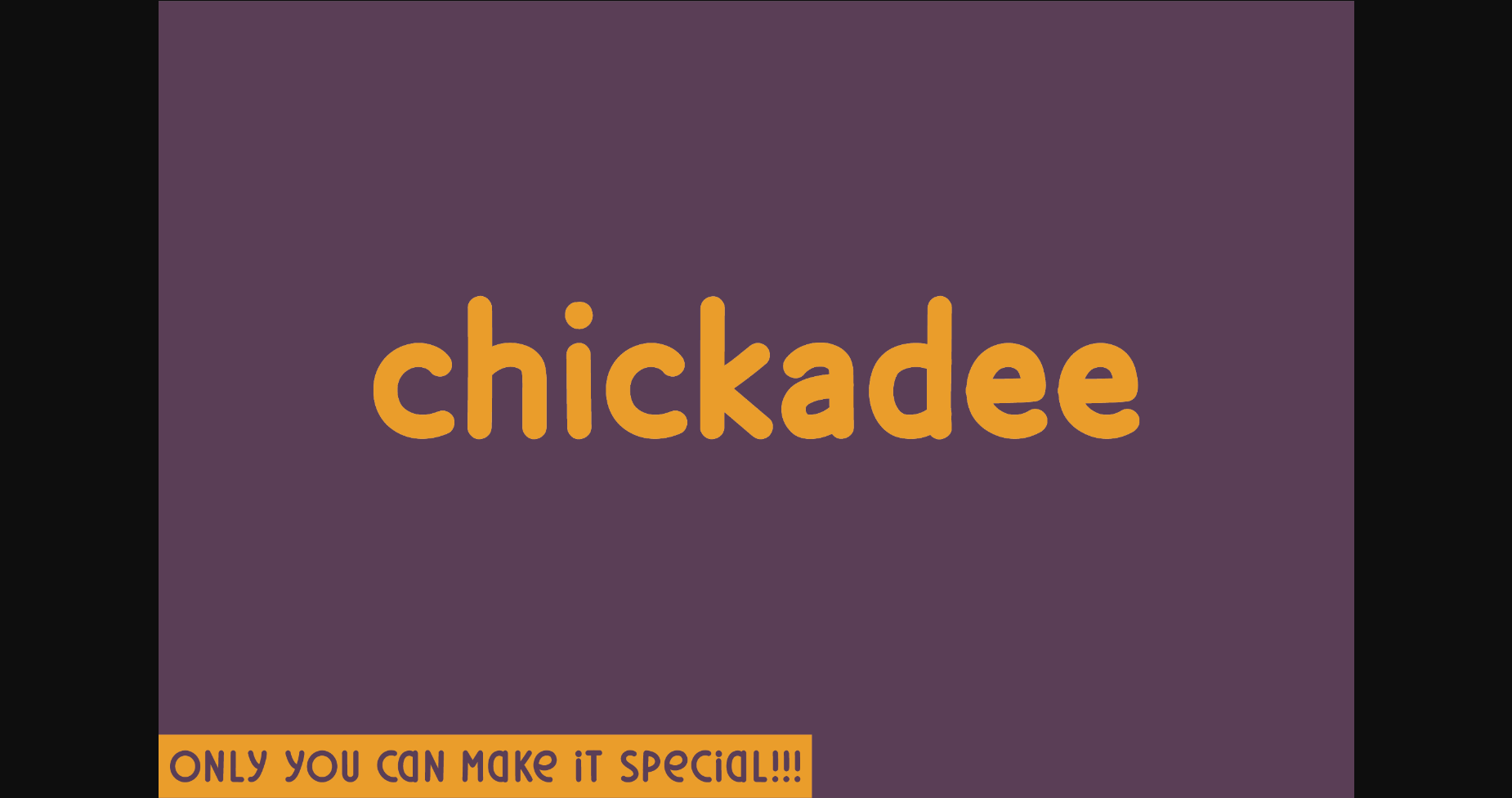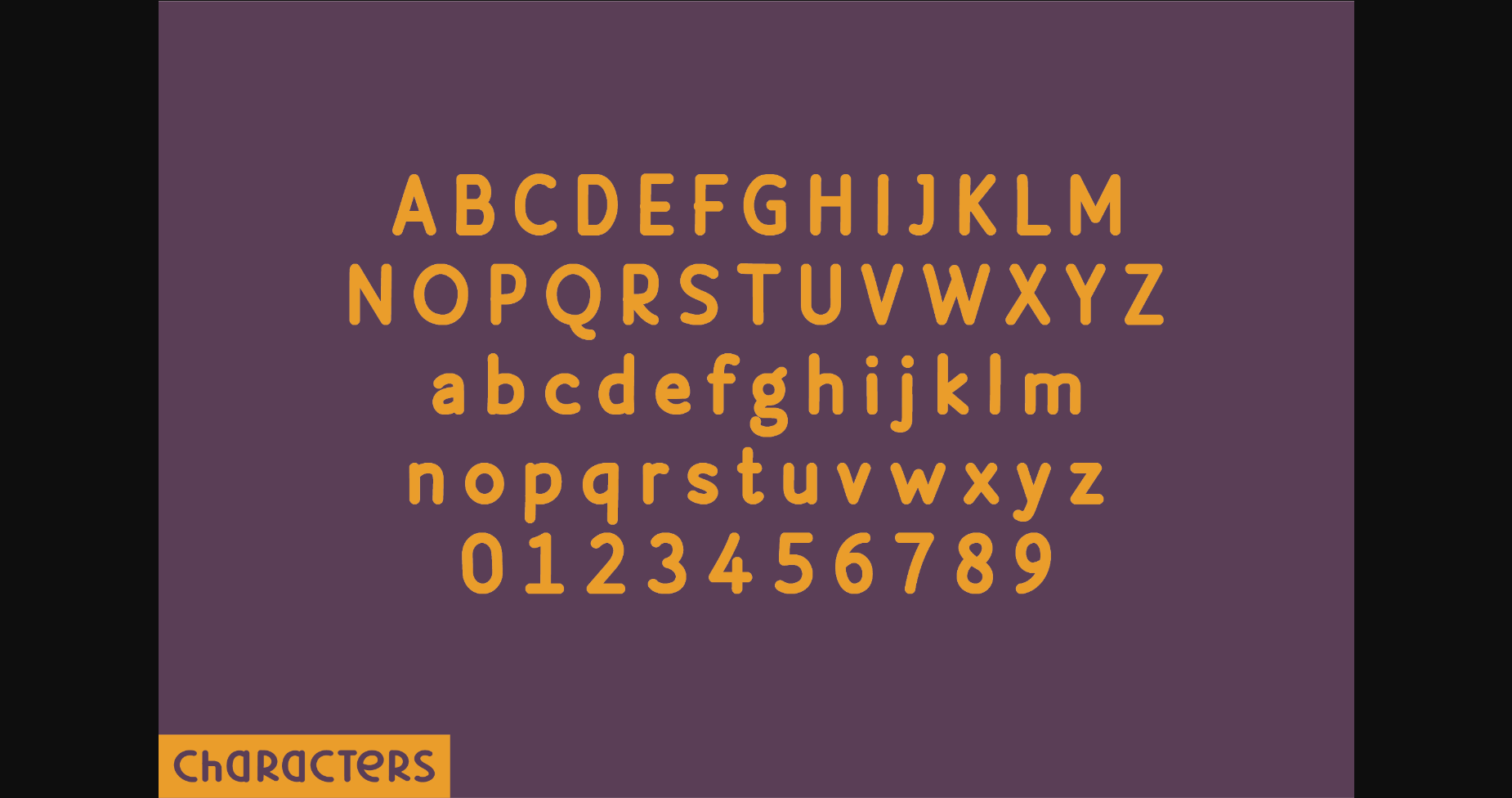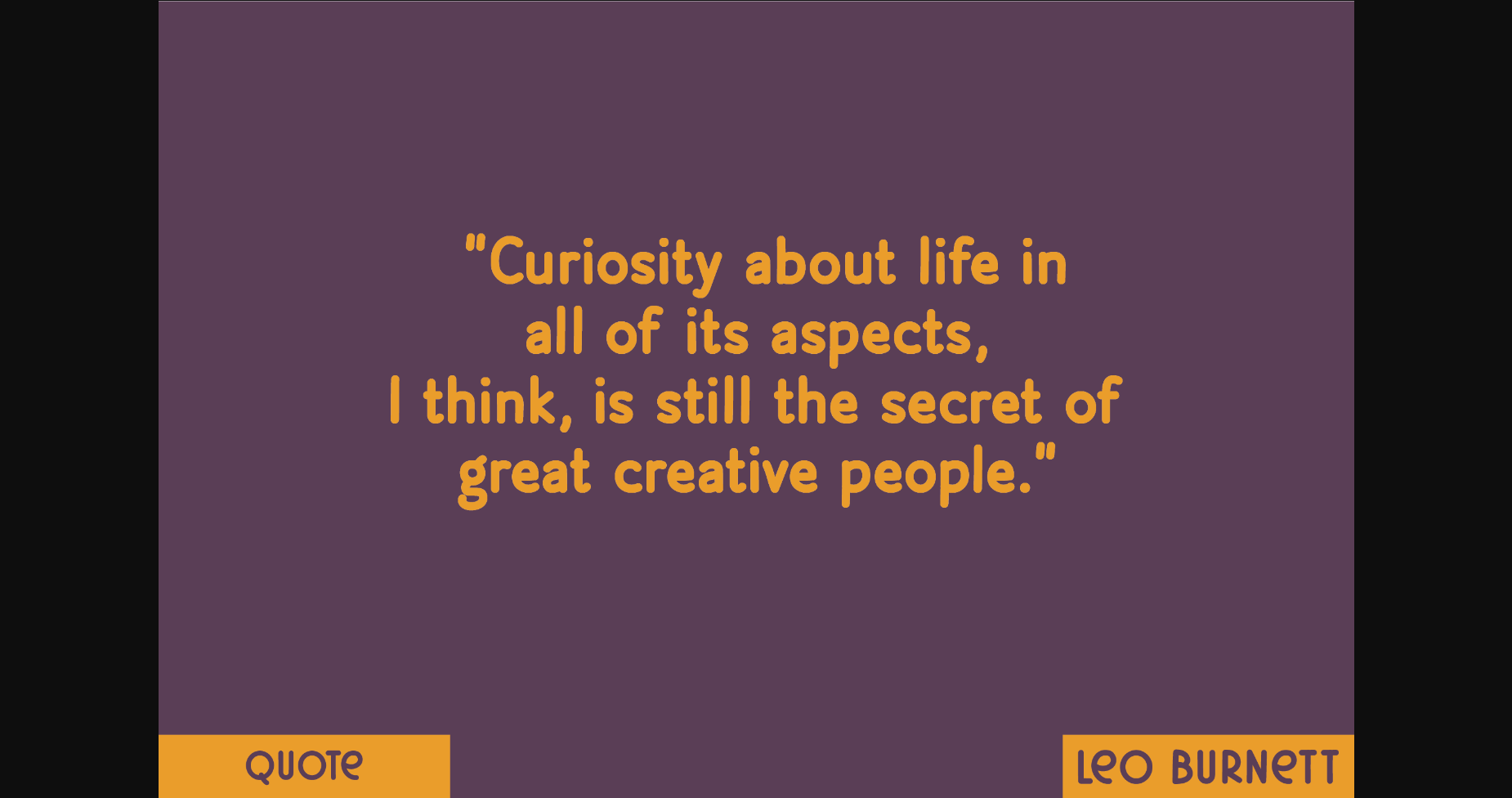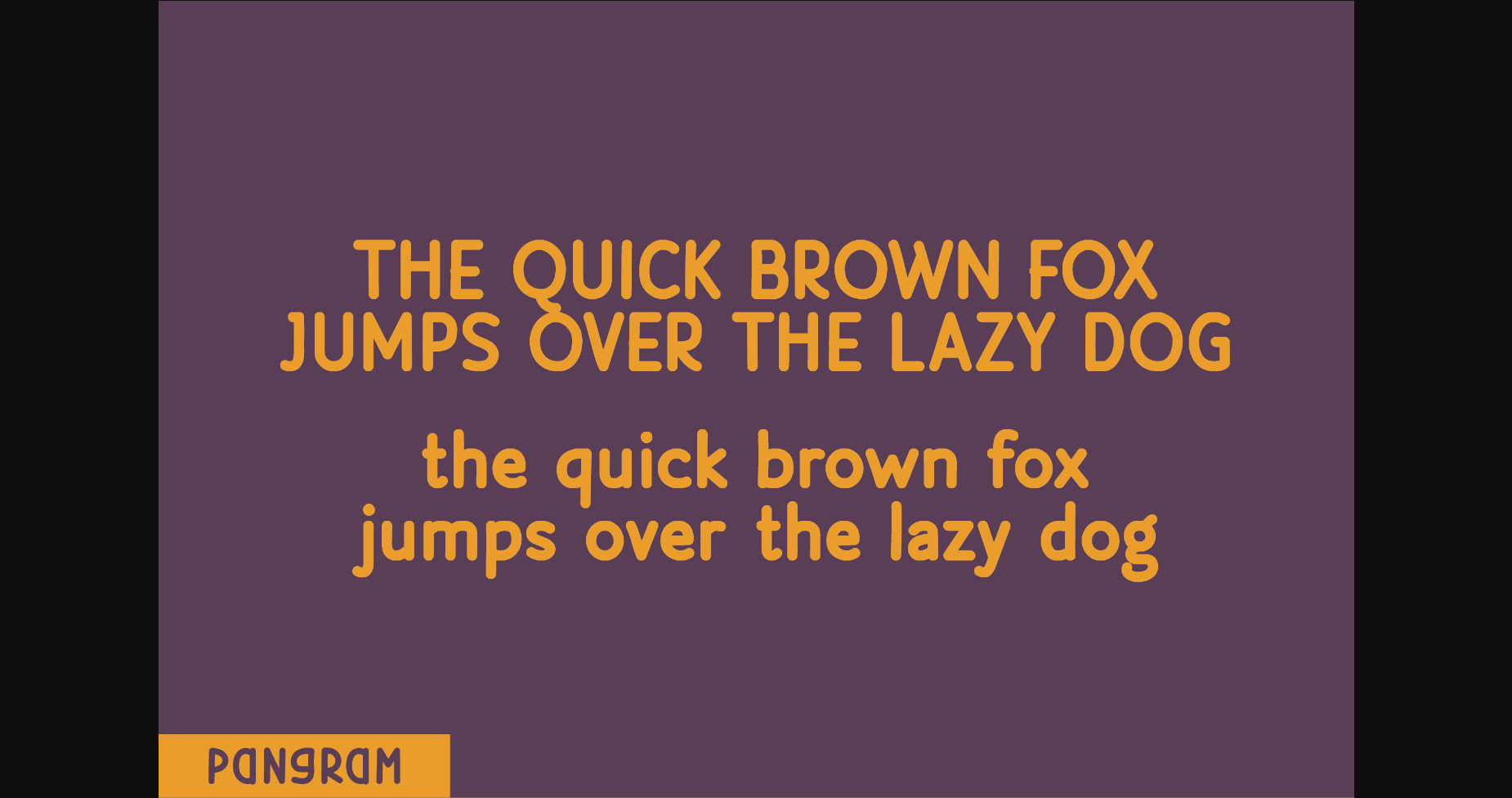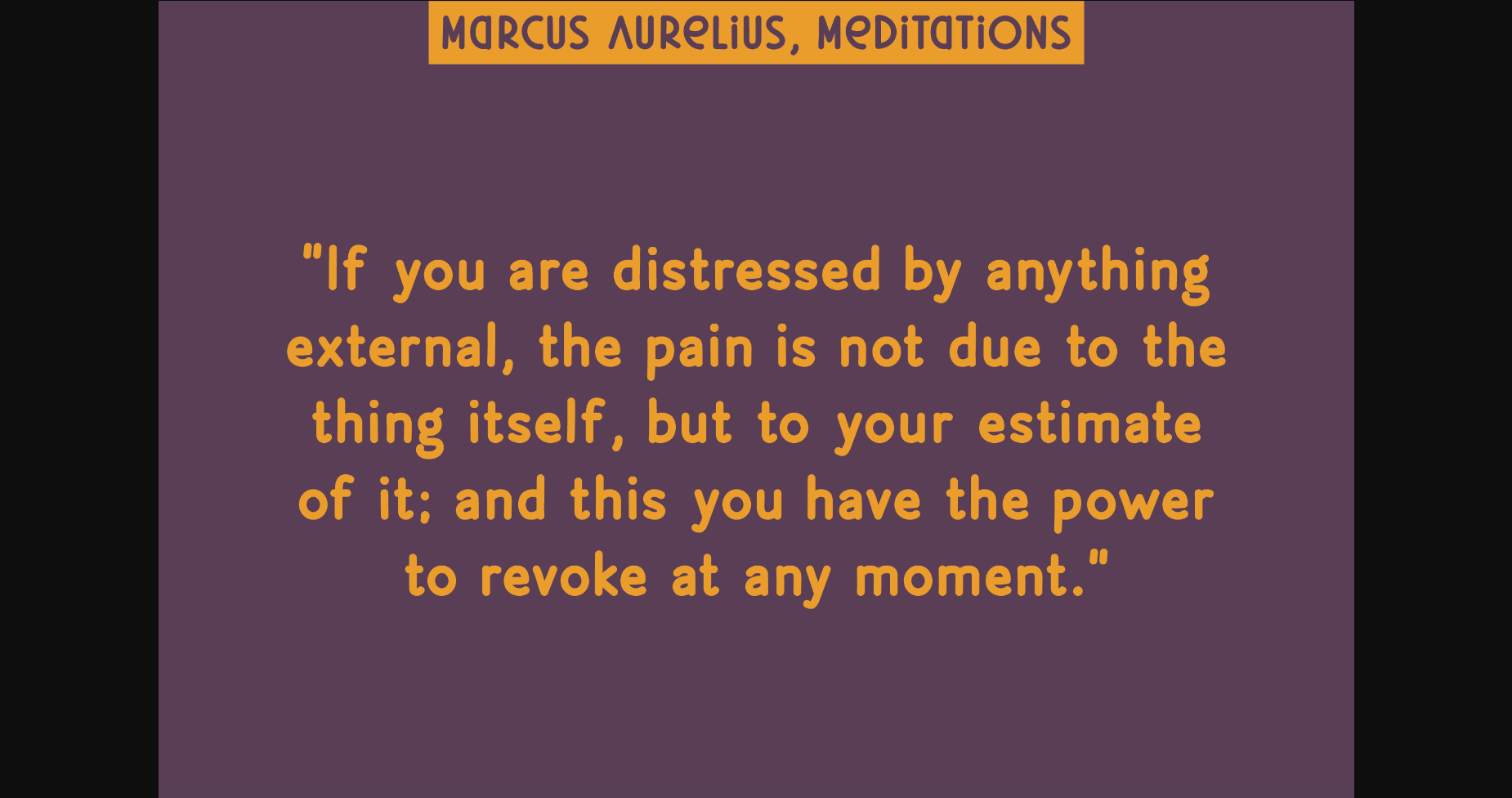
HomeSans Serif FontsChickadee Font Sans Serif Fonts Chickadee Font FacebookXPinterestWhatsApp 1 of 7 ... Chickadee Font Poster 2... Chickadee Font Poster 3... Chickadee Font Poster 4... Chickadee Font Poster 5... Chickadee Font Poster 6... Chickadee Font Poster 7... About Chickadee Font Chickadee is a bold and unique sans serif font, perfect for quotes, notes, tees, logos, social media and any design that requires a classic touch. DOWNLOAD NOW People also explored Ro La La Font Candyland Font Eternity Font Mr. Fix It Font Fairy Tales Font Konsteady Font Jumpscare Font Heiger Font Daventer Font 376 0 TagsChickadee Font Previous articleLittle Lamb FontNext articleButtercup Font LEAVE A REPLY Cancel reply Comment: Please enter your comment! Name:* Please enter your name here Email:* You have entered an incorrect email address! Please enter your email address here Website: Save my name, email, and website in this browser for the next time I comment. Personal Use Free Madison Script Personal Use Free Read more about this font Lumber Personal Use Free Read more about this font Reztop Personal Use Free Read more about this font Bintang Noela Personal Use Free Read more about this font BLOG Modern Sans-Serif Fonts That Brands Love in 2025 In 2025, modern sans-serif fonts remain a top choice for brands looking to project clarity, professionalism, and... Where to Buy American Fonts Online in 2024 The 10 Best Handwriting Fonts to Add Personality to Your Designs Best Fonts for T-Shirt Design – Top 2025 Picks